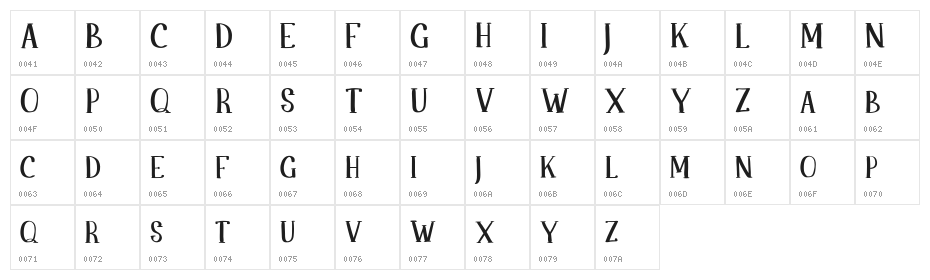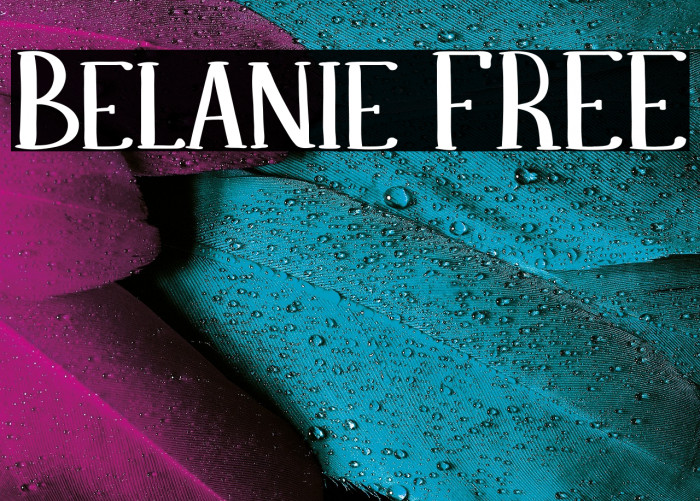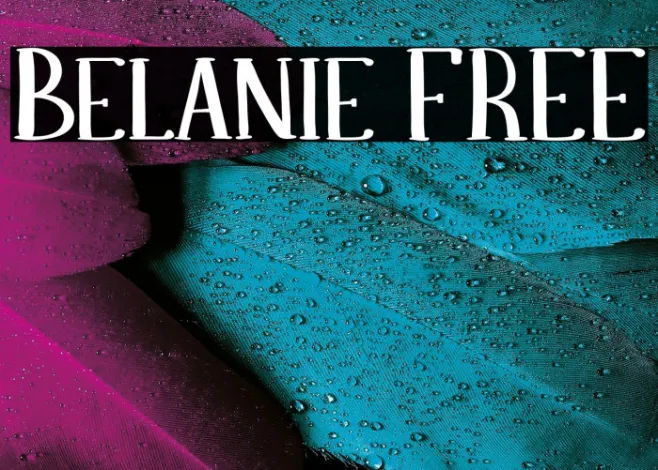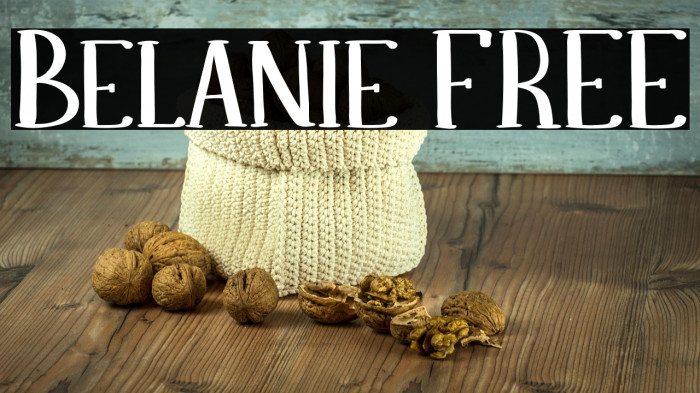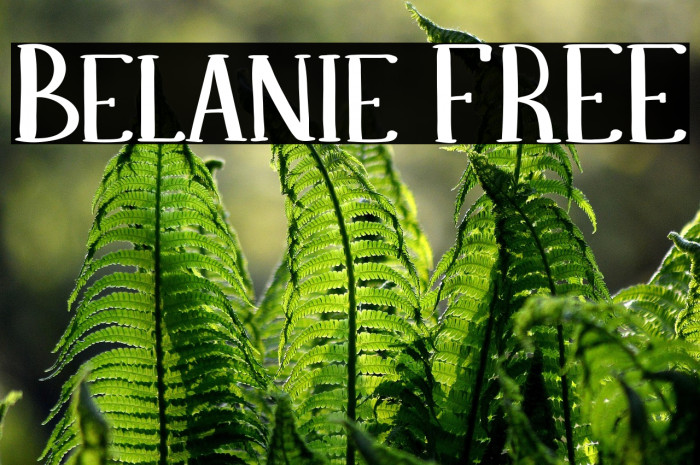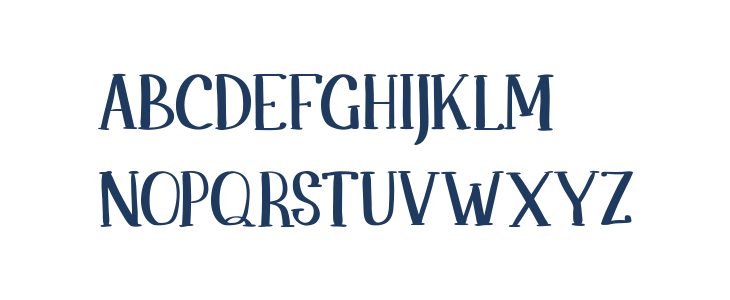
Belanie FREE Font
Belanie FREE Description
This font features a unique blend of classic and modern elements, characterized by its bold and slightly whimsical design. The uppercase letters are tall and slender with subtle curves, giving them an elegant yet playful appearance. The lowercase letters maintain a consistent style with a slightly condensed form, enhancing readability while preserving the font's distinctive character. The numbers and special characters are crafted with the same attention to detail, ensuring a cohesive look across all text elements. This font's artistic flair makes it suitable for a variety of creative applications.